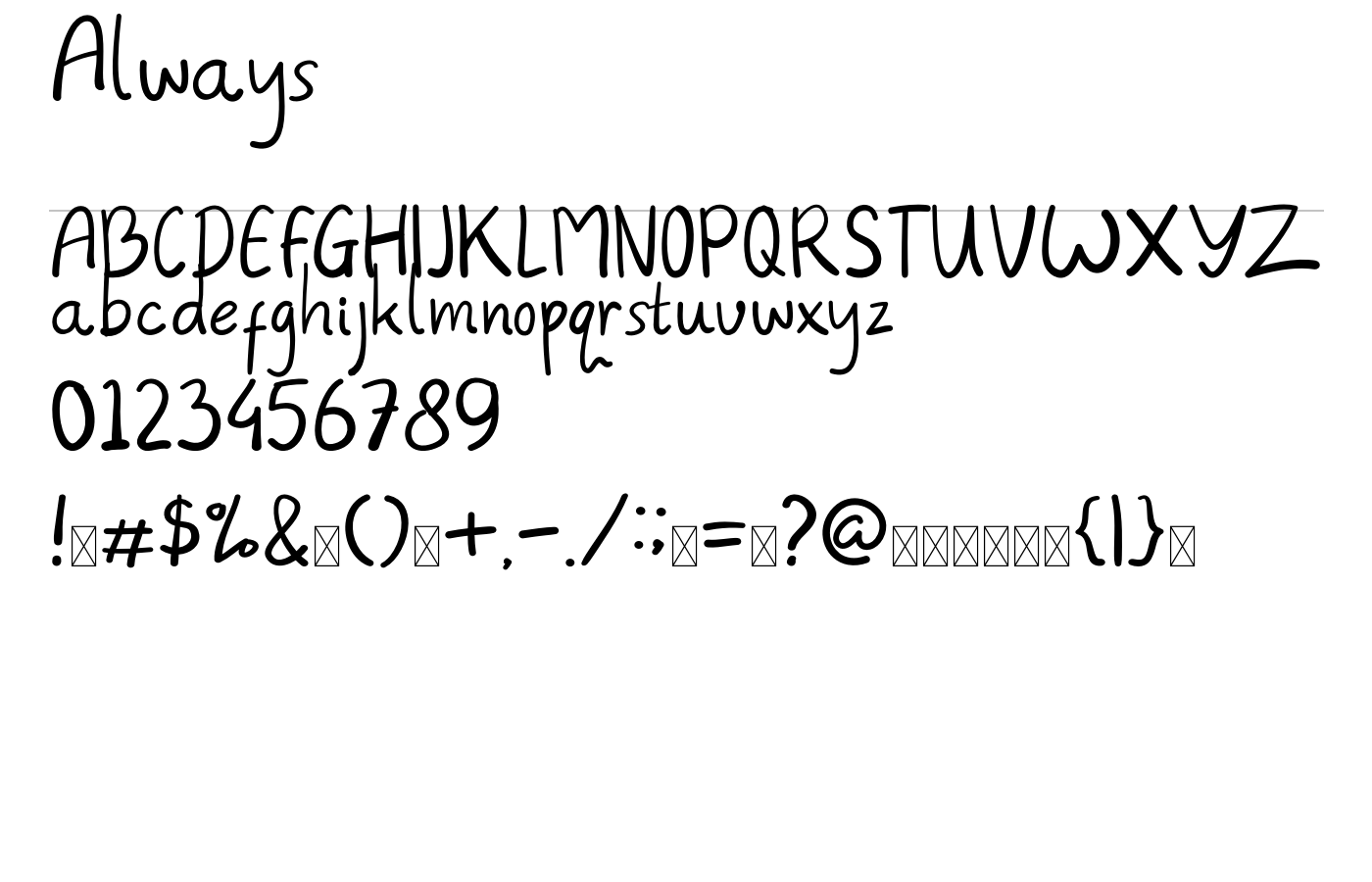
Always Font is a friendly, casual handwritten sans serif with a light weight and airy feel, featuring playful, rounded letterforms that give it an approachable and informal look. Its unique style works well for personal projects, creative branding, and fun editorial uses where a warm, human touch is desired. This font is ideal for headlines, invitations, and social media graphics that aim to convey friendliness and creativity.
Always Font